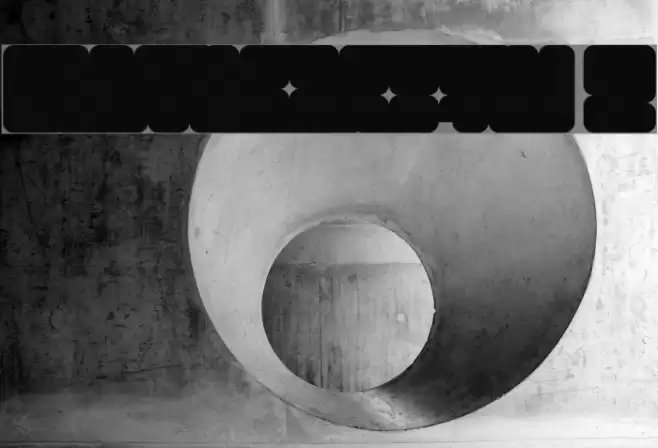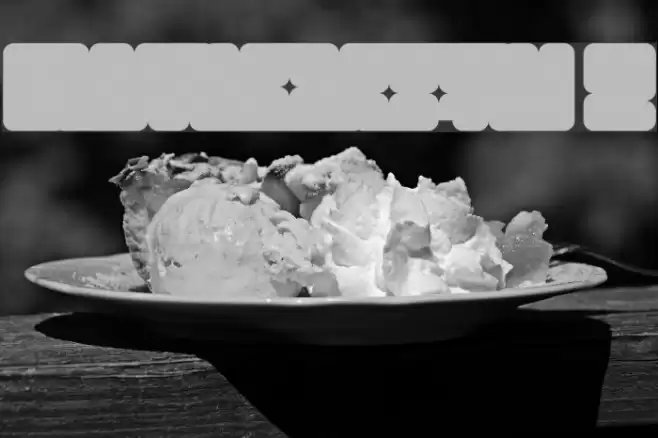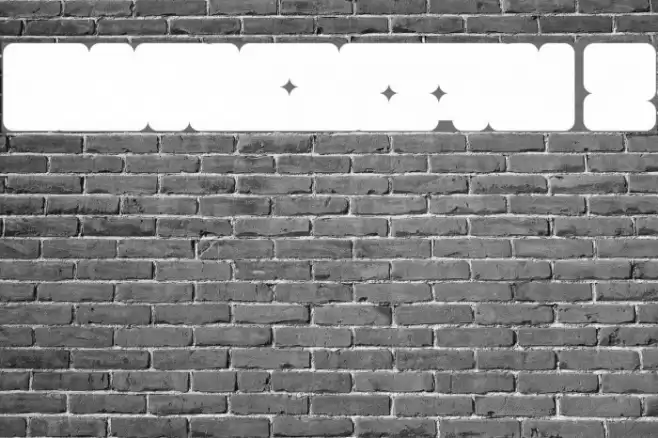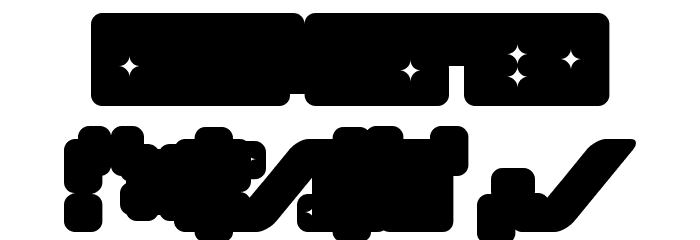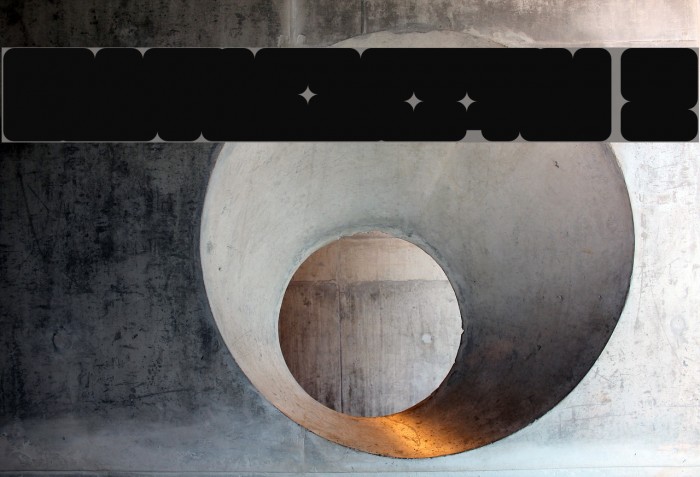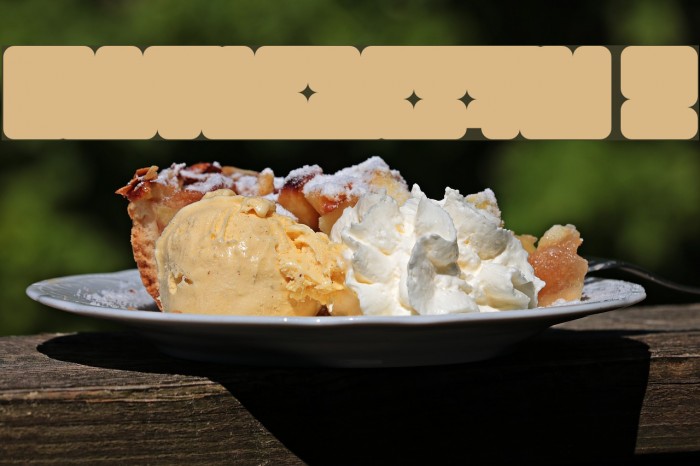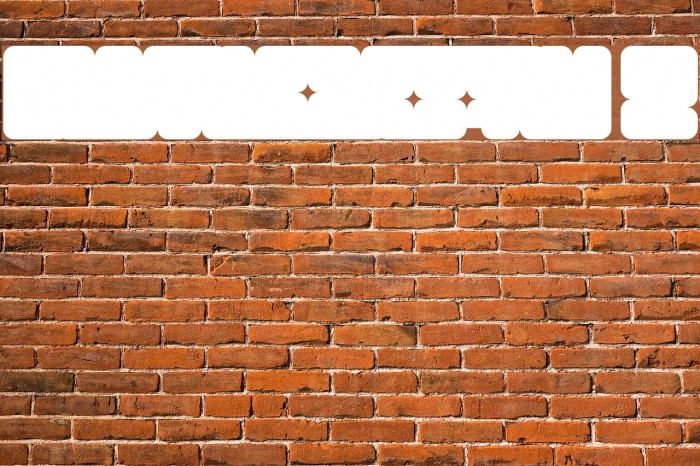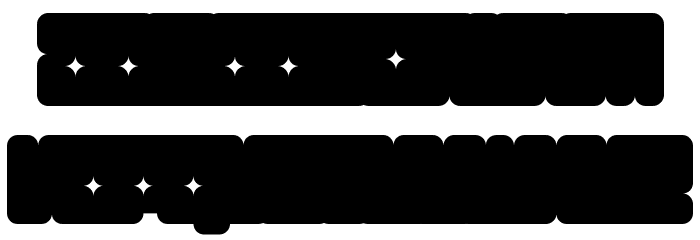
Funkygraphy 2 Font
Funkygraphy 2 Description
This font exudes a playful and whimsical charm, characterized by its bold and rounded letterforms. Each character is adorned with star-like embellishments, adding a touch of sparkle and uniqueness. The overall design is reminiscent of retro styles, with a modern twist that makes it stand out. The letters are evenly spaced, ensuring readability while maintaining a fun and engaging appearance. The font's decorative nature makes it ideal for projects that require a lively and eye-catching typeface.
A playful, star-embellished font with bold, rounded letterforms from Fancy fonts.
- Proposed Projects: Ideal for children's book covers, party invitations, playful branding, and any project needing a whimsical touch.
- Overall Style: Playful, Retro